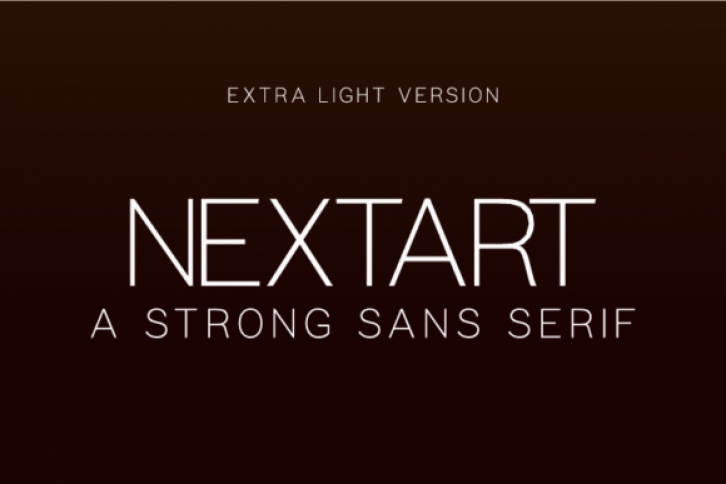
Nextart is a romantic, timeless, and minimalistic all caps sans serif font that looks stunning in any context. It’s perfect for magazine layouts, invitations, headers, or even large-scale artwork.